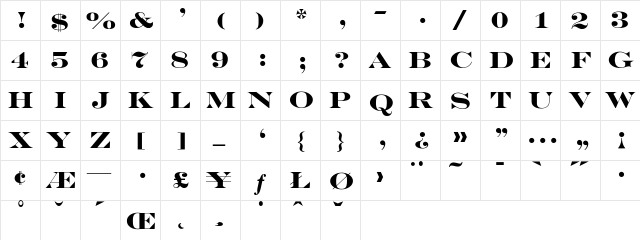
MEngravers-BoldSizeOne Regular
Design Context for MEngravers-BoldSizeOne Typeface
MEngravers-BoldSizeOne takes a measured approach to typography — its balanced proportions and neutral character make it a reliable workhorse for both digital and print work. The heavy weight commands attention and anchors typographic hierarchies.
Pro Tip: Use MEngravers-BoldSizeOne in both headline and body roles to test its range before committing to a single application.